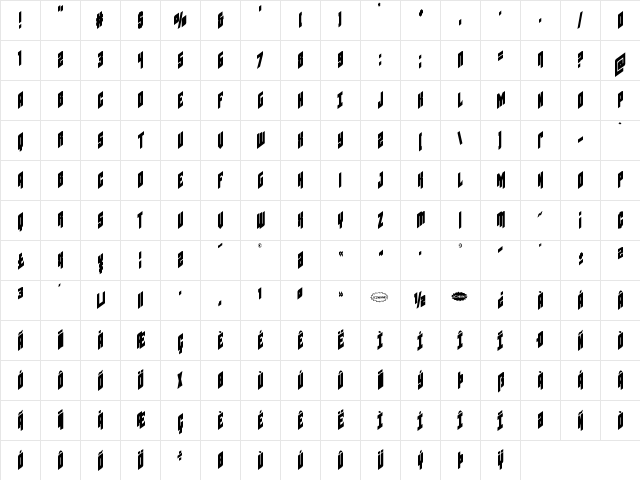
Galaxy Force Condensed Condensed
Design Context for Galaxy Force Condensed Typeface
Galaxy Force Condensed has the bold swagger of sports branding: strong, assertive letterforms designed to dominate headlines and jerseys alike. Its narrow stance lets it pack a punch even in space-constrained designs.
Built for sports team identities, athletic apparel, event posters, and high-energy promotional material.
Pro Tip: Galaxy Force Condensed thrives on contrast — try it large, bold, and tight against a clean background for maximum visual impact.